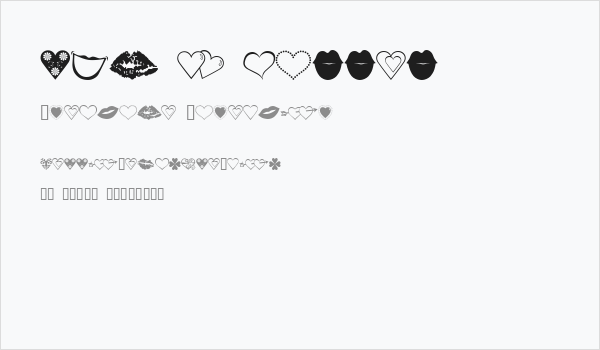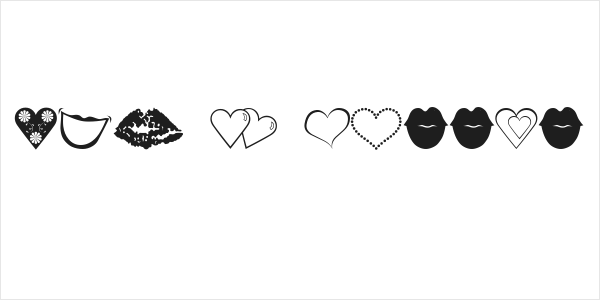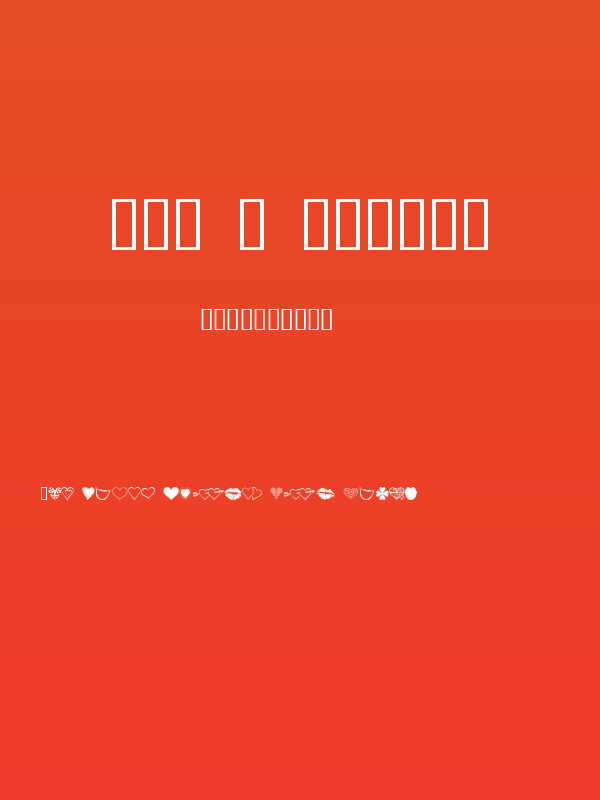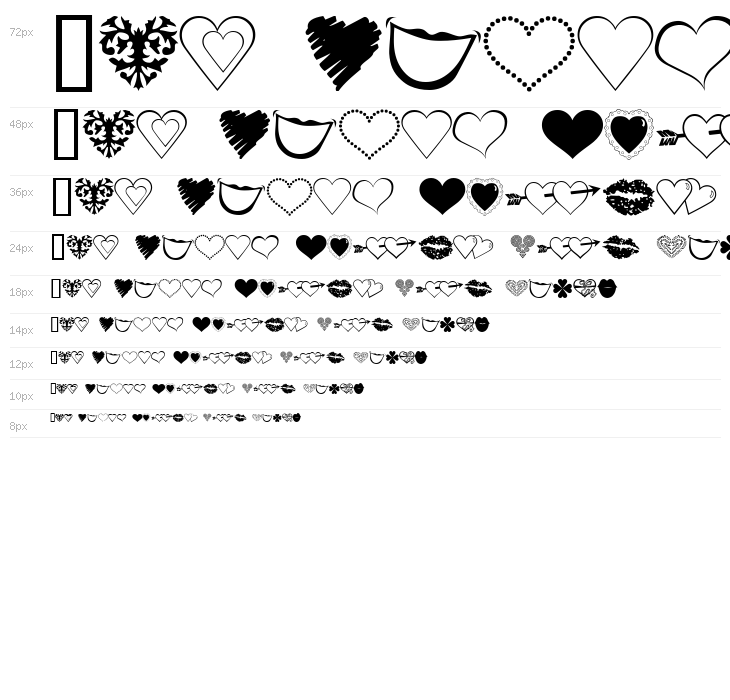
luv n kisses Font
luv n kisses Description
This is a decorative font composed entirely of heart and lip shapes, each with unique patterns and designs. The characters are playful and whimsical, featuring a variety of heart styles, from solid to patterned, and lips in different expressions. The font lacks traditional alphanumeric characters, focusing instead on romantic and affectionate symbols. This makes it ideal for projects that require a fun and loving aesthetic.